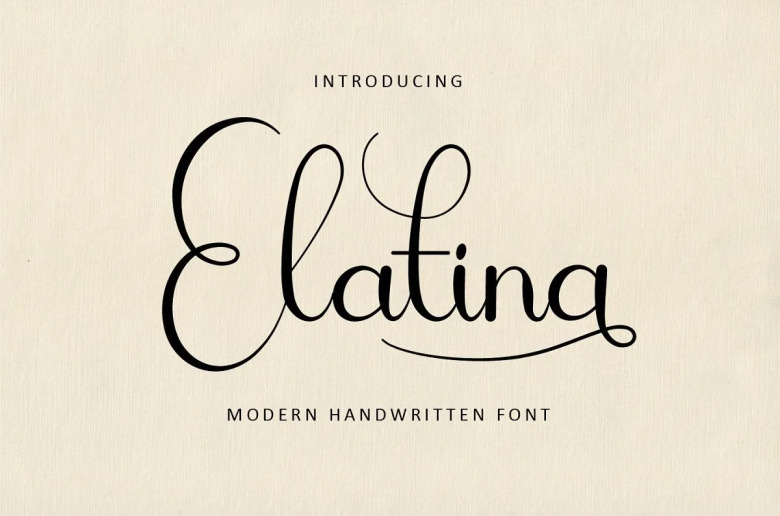
Elatina Font
Elatina script handwritten font. principalTable方 It’s all a matter of well-proportioned letters, and this font has certainly those: Creativity lies in its unbelievably flexible style, and you must fall in love with it to make fascinating designs.
Elatina Handwritten Script Font